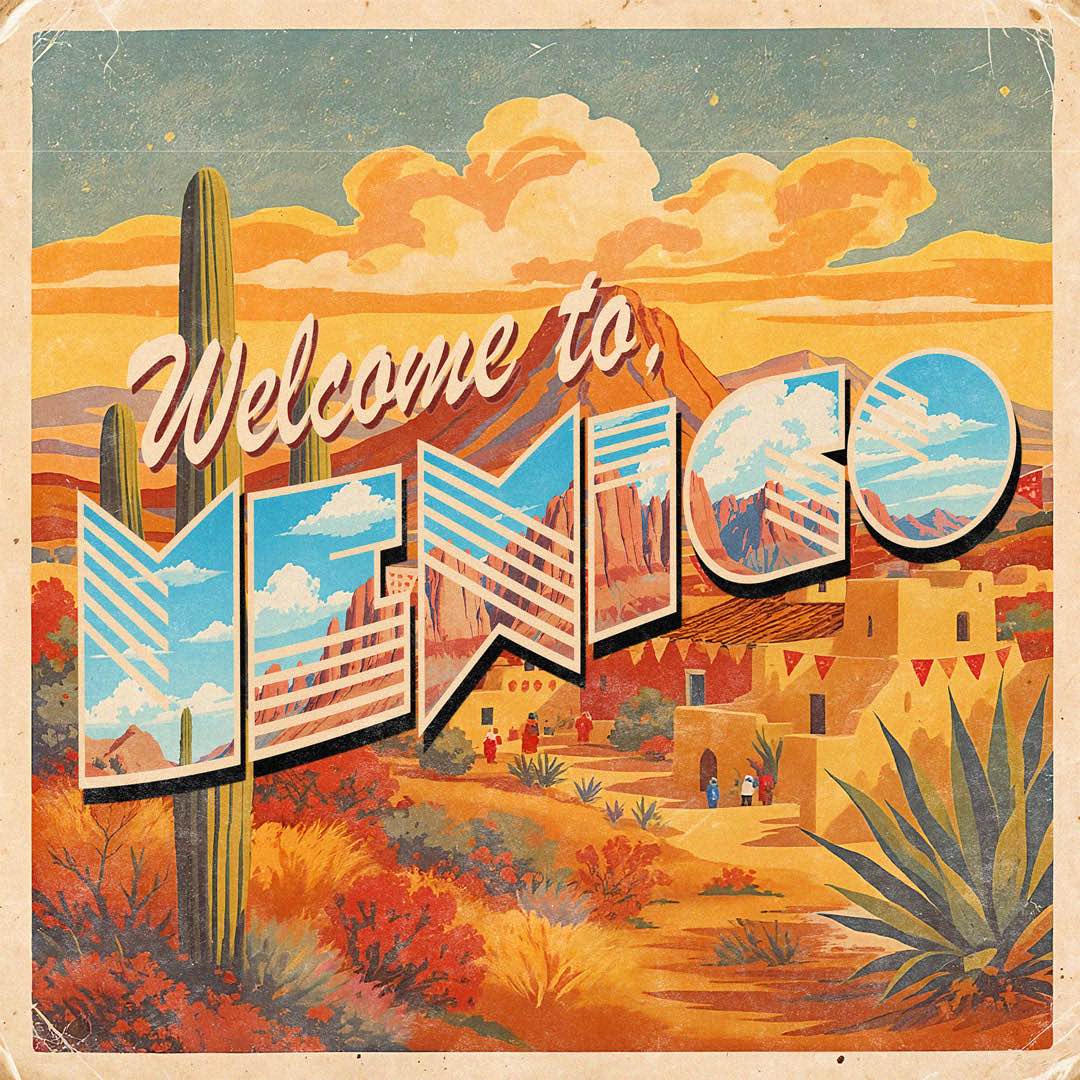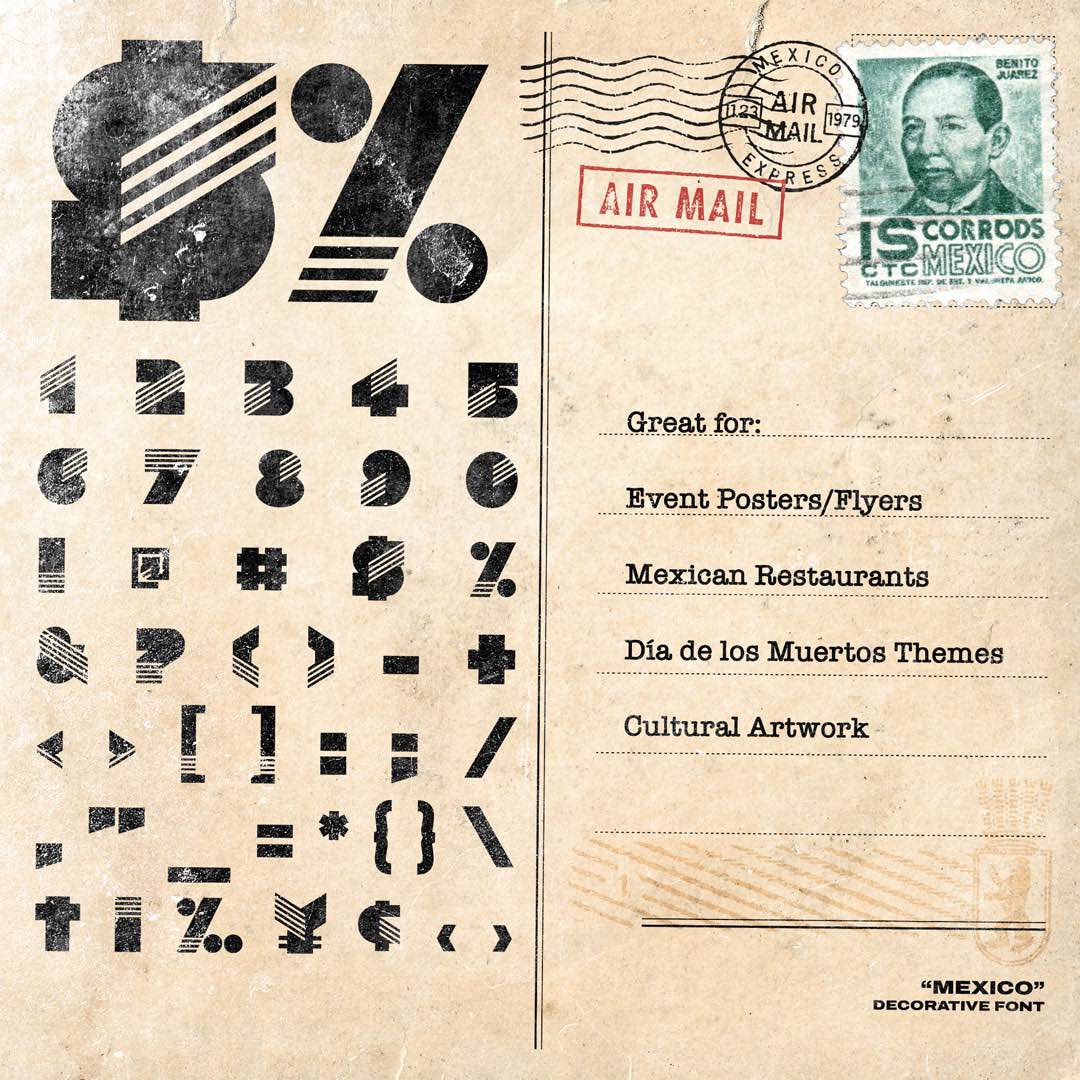
Mexico is bold, loud, and full of flair, a decorative display font that dances across the page like papel picado in the wind. With roots in folk tradition and the punch of vintage signage, this typeface is built for cultural celebration, loud design, and high-impact headlines. Whether you’re branding a taquería, throwing a festival, or resurrecting retro poster vibes, Mexico brings the heat, the rhythm, and the unmistakable character of Latin flair.